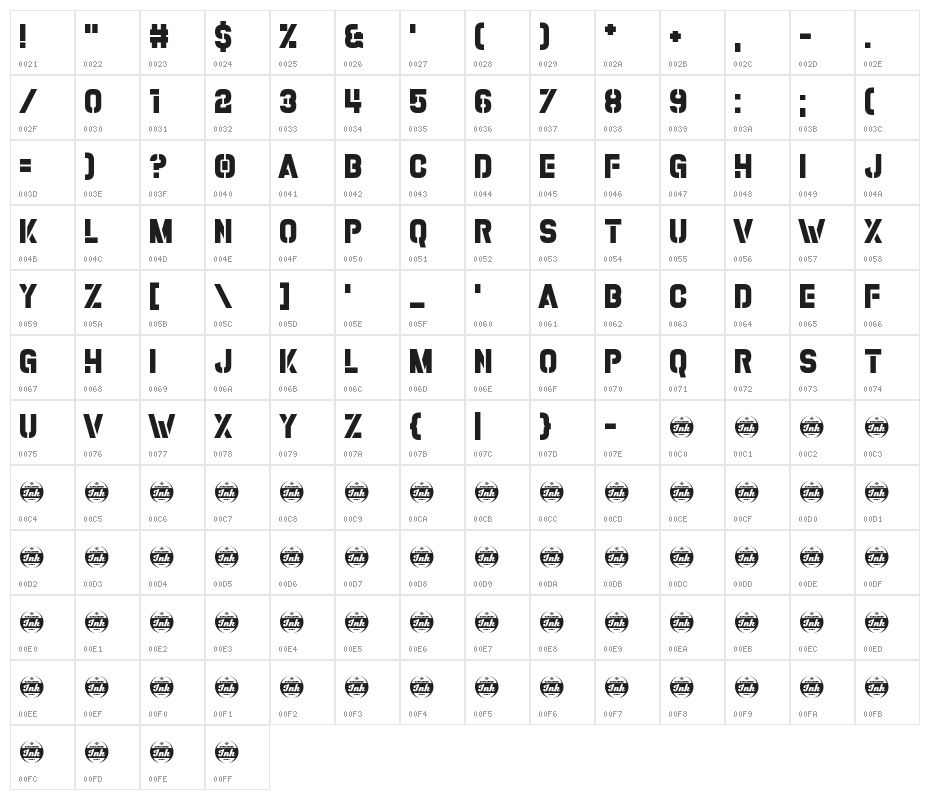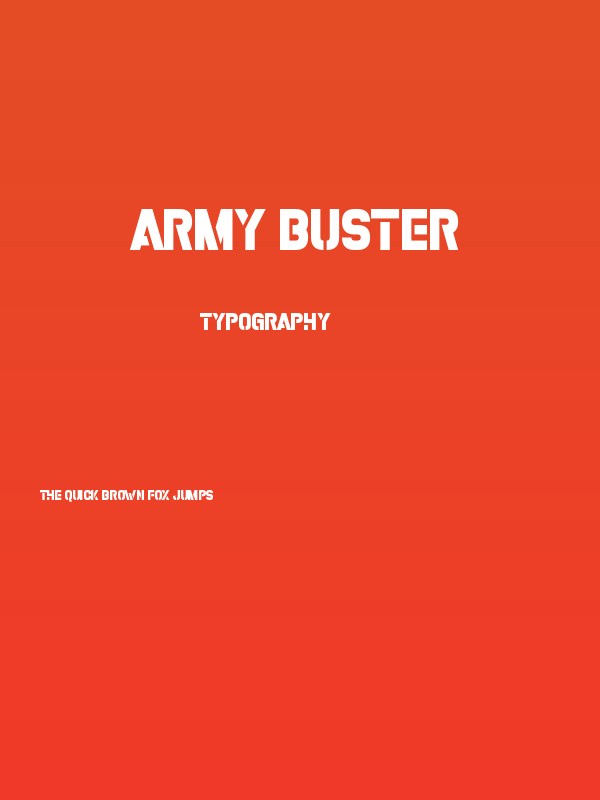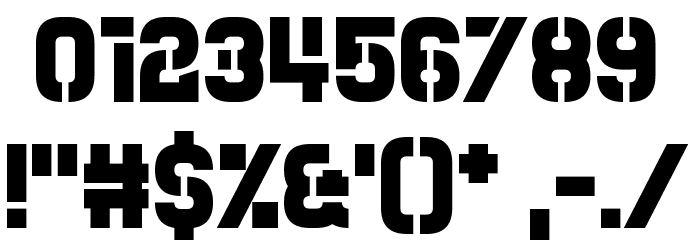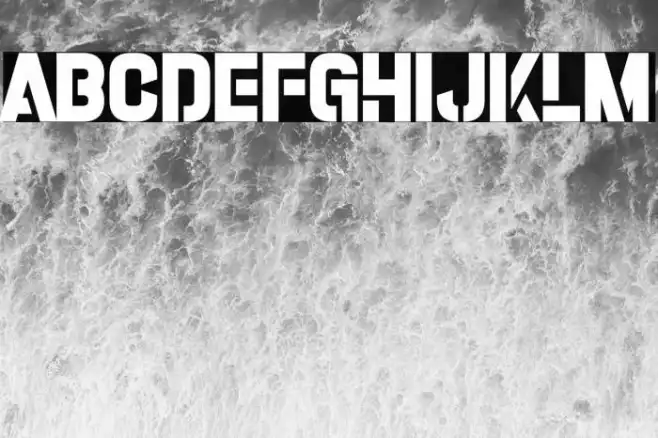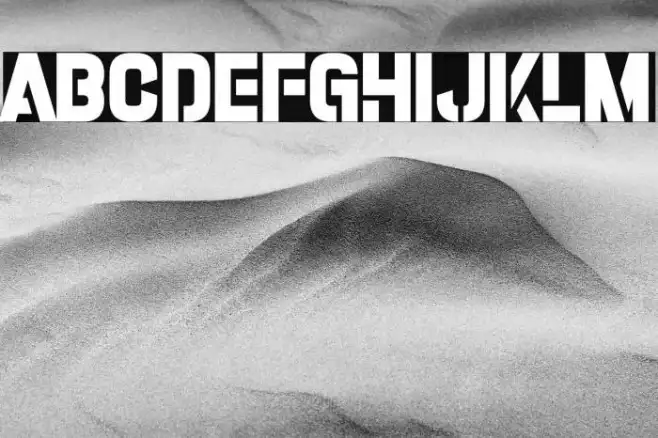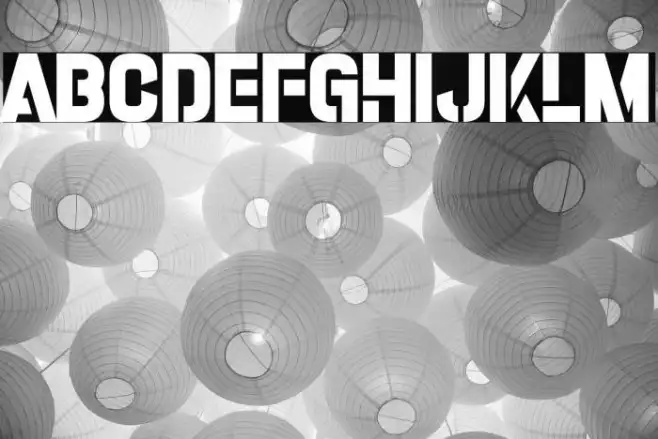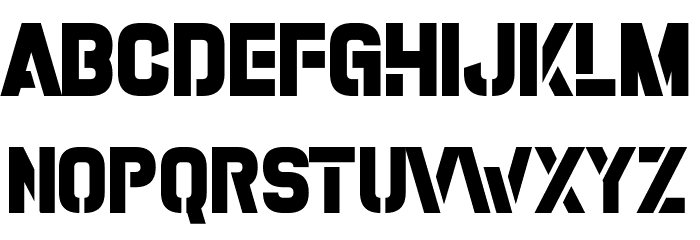
Army Buster Font
Army Buster Description
This font features a bold, stencil-like design with strong geometric shapes and high contrast. The characters are blocky and robust, with distinct cutouts that give it a military-inspired aesthetic. The uppercase letters are particularly striking, with angular edges and a solid presence. The numbers and special characters maintain the same boldness and style, ensuring consistency across all glyphs. This font is ideal for creating impactful headlines or designs that require a strong, authoritative look.
| Use Case | Headlines, Logos, Signage |
| Proposed Projects | Ideal for military-themed posters, branding, logos, and signage that require a strong, authoritative presence. |